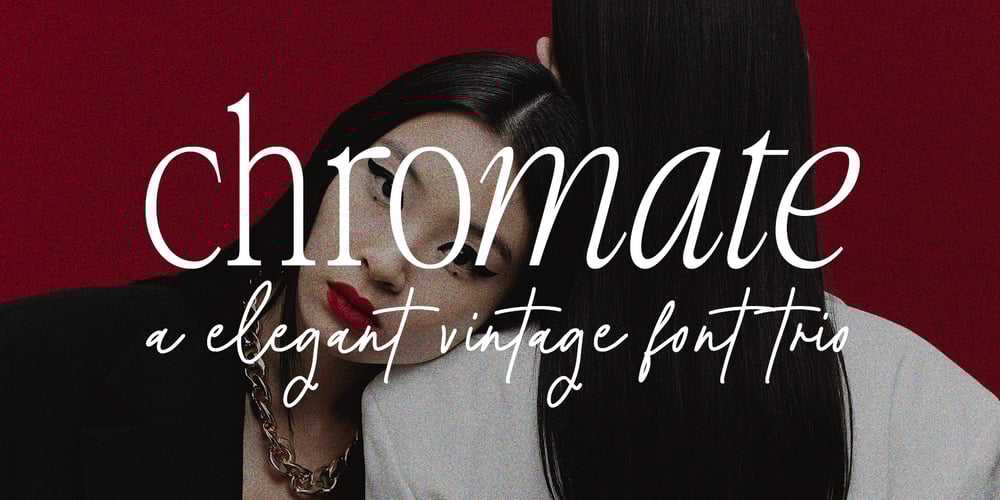
Chromate Font Family was designed by Dmitrii Chirkov and published by Supfonts. Chromate contains 3 styles and family package options. Chromate – a charming family with 3 fonts in retro style of the 80s and 90s! The dense structure will give an incredible retro vibe to your project.There are 3 fonts at your disposal, Regular, Italic and Script. This set covers all your needs and allows you to keep the project in a single style. You no longer need to look for which font is suitable, everything is already here